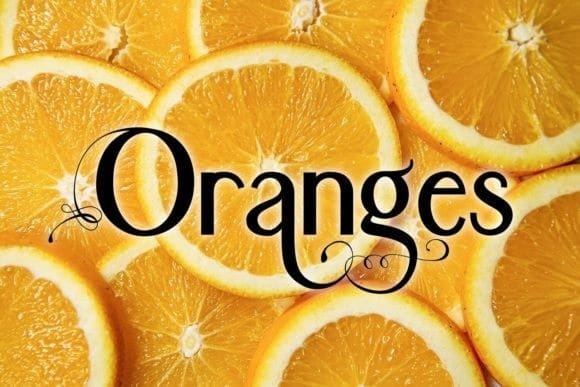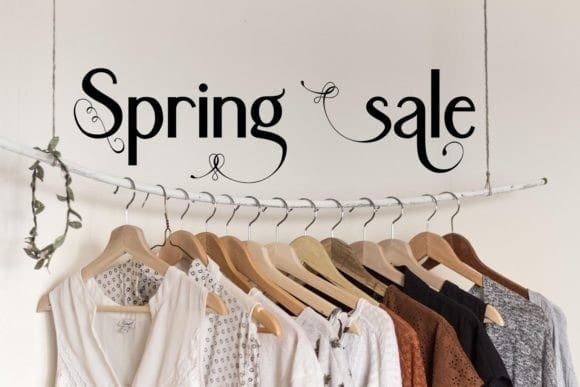
Sonatha Font
Sonatha Font, blends serif elements with a modern touch. This font will suit any design and is recommended for crafts, branding, posters, books, quotes, print templates, packaging, invitations, product labels, advertising, logos, wedding projects, etc. Sonathafonts come in uppercase, lowercase, punctuation, symbols, numerals, ligatures, European characters, and alternate styles.